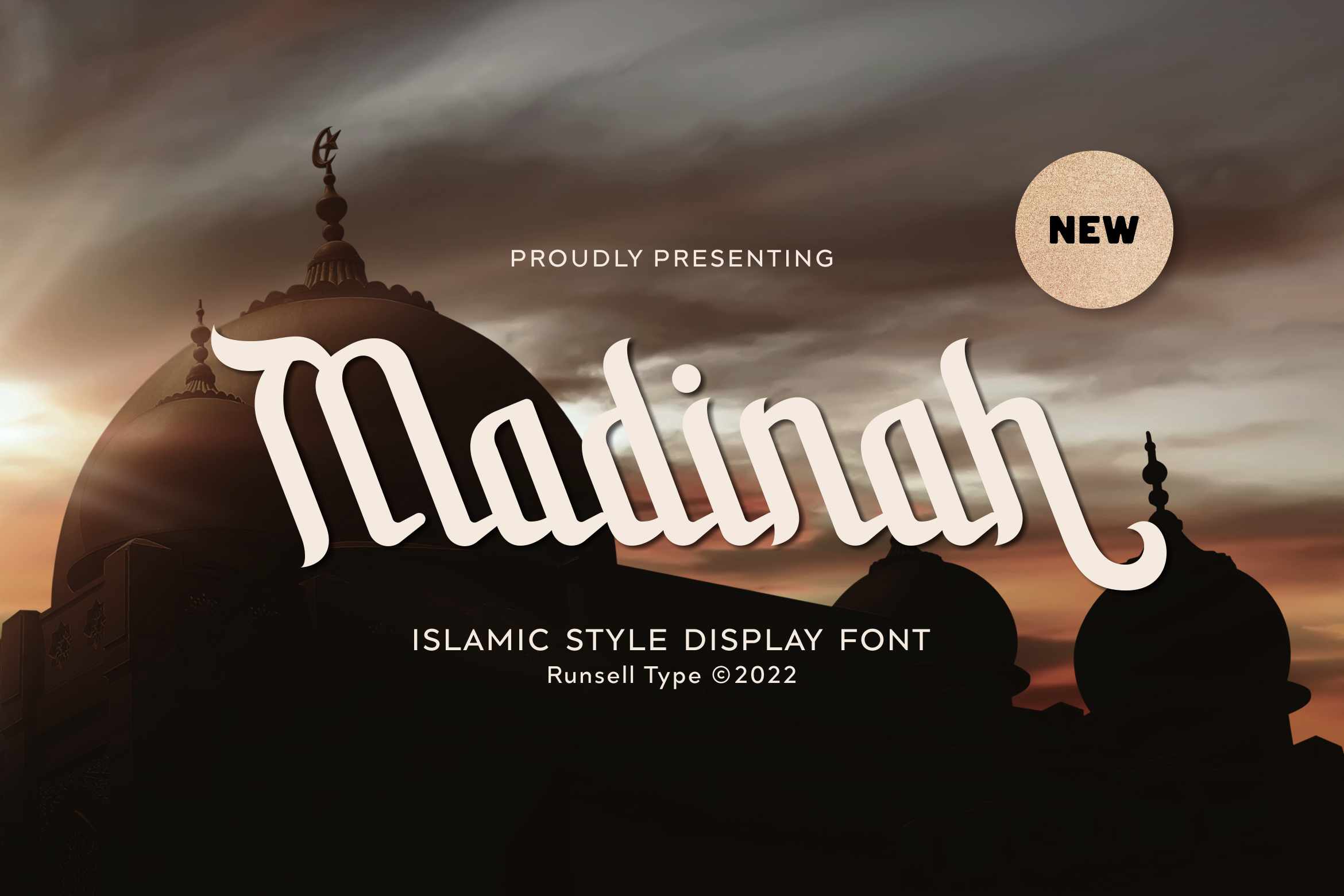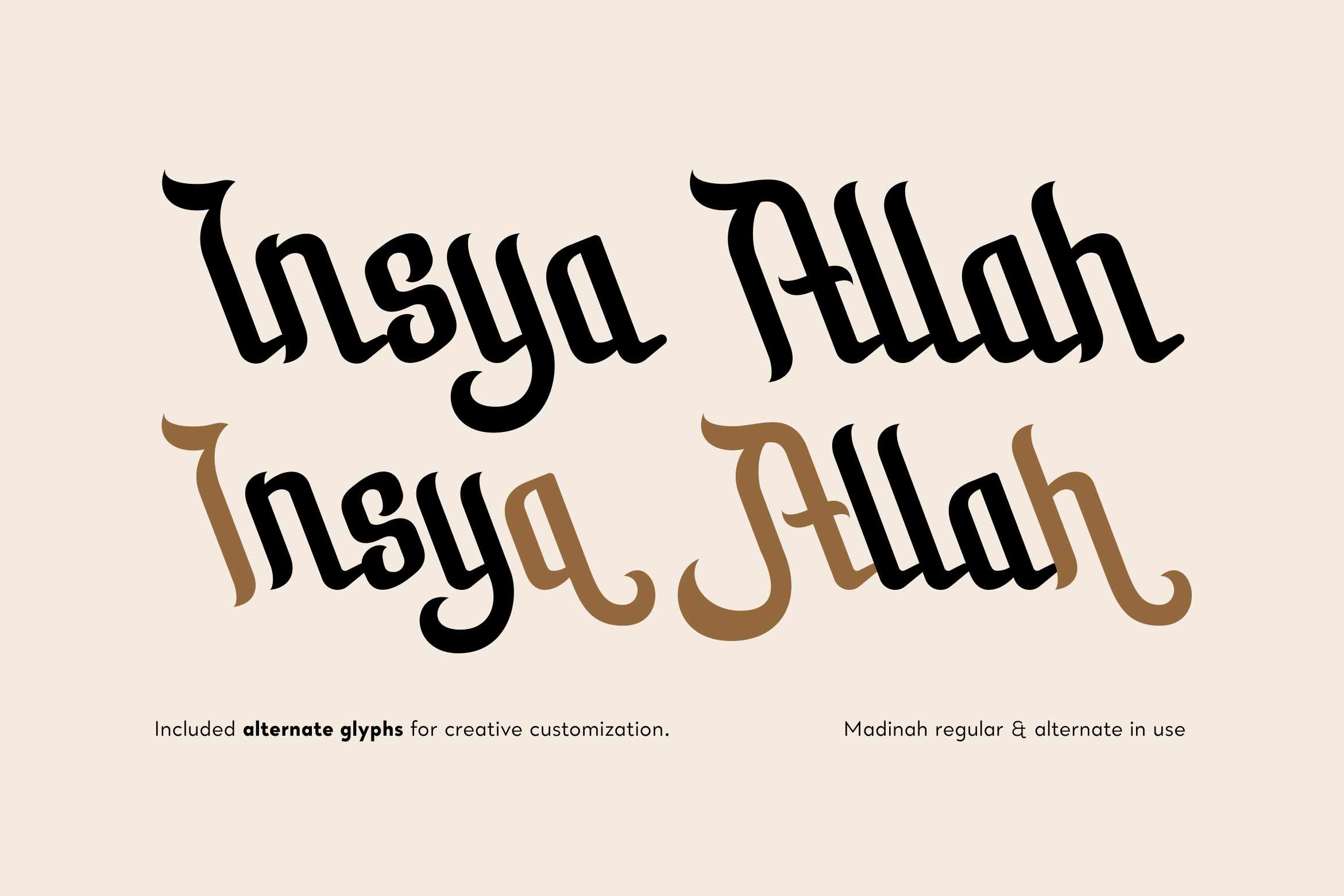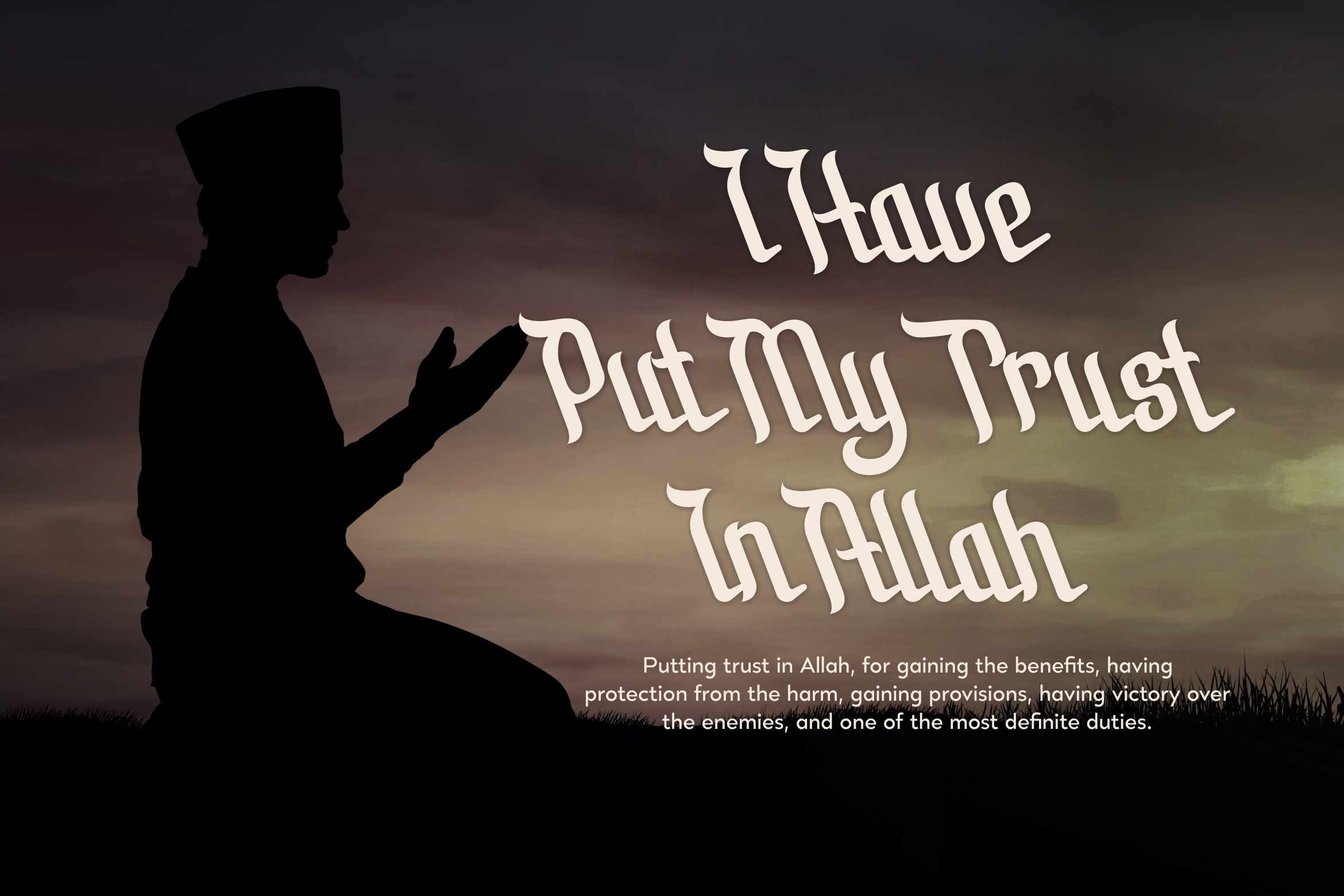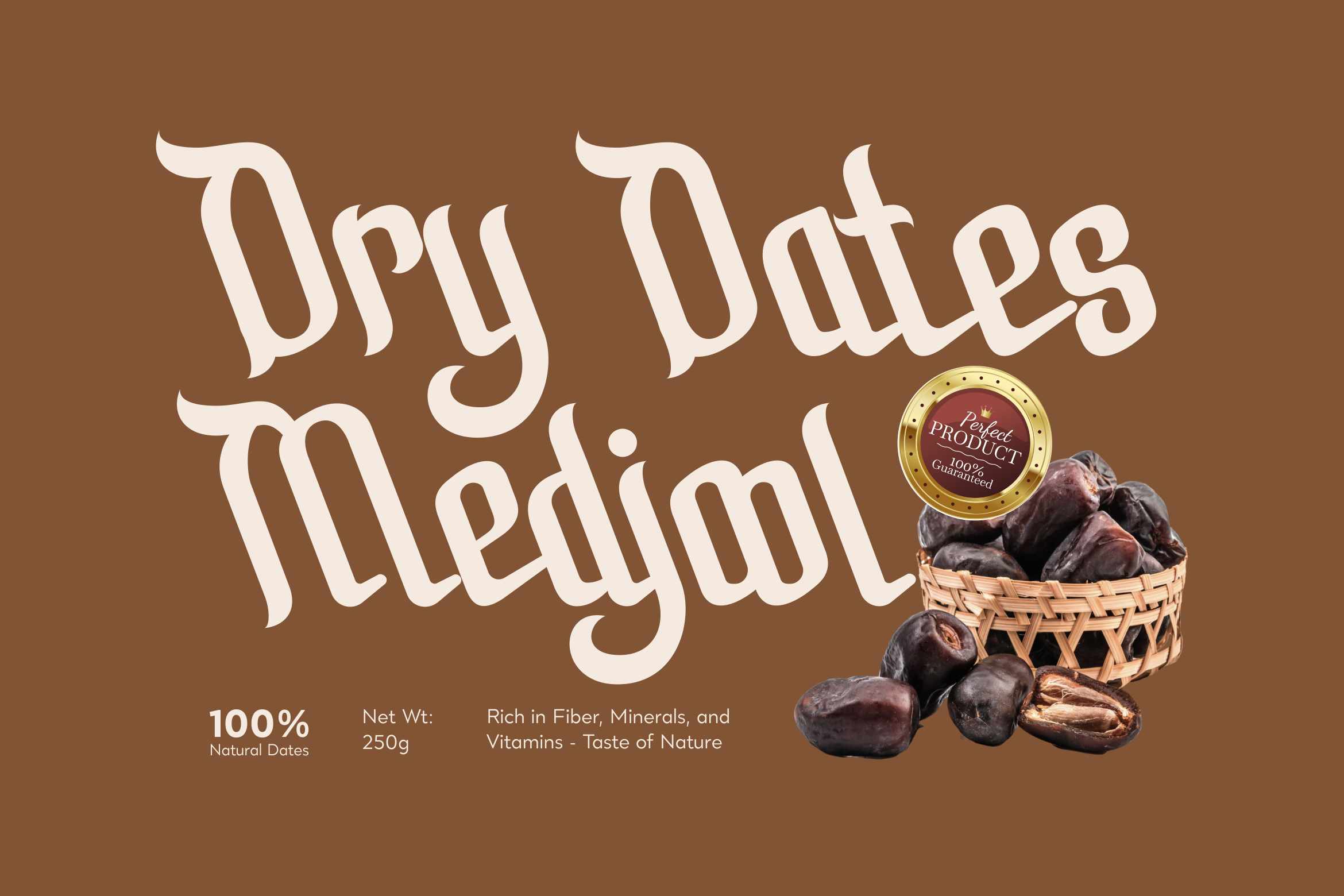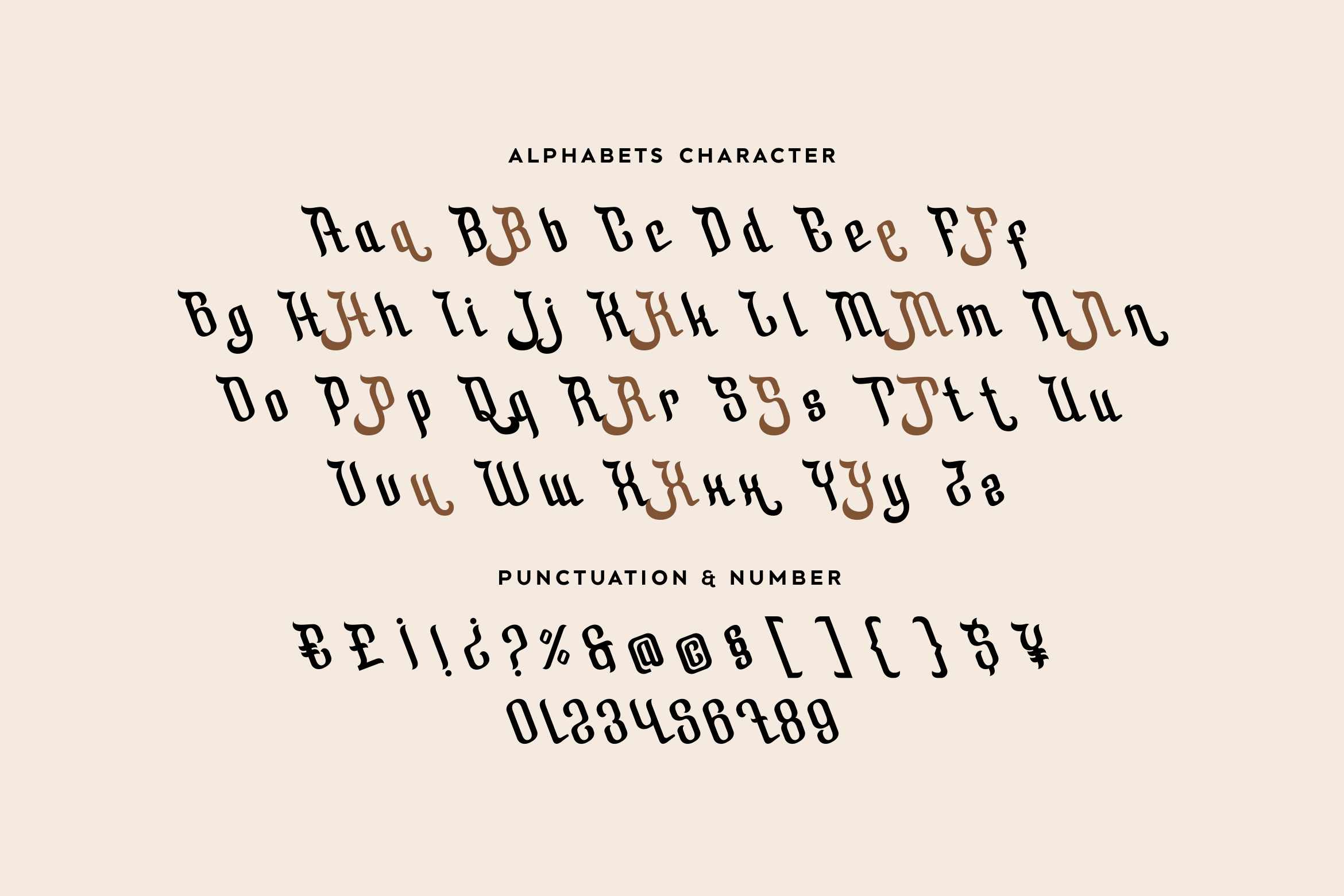
Madinah is an elegant Islamic-style display font that beautifully blends traditional calligraphic inspiration with modern letterform flair. Its distinctive swashes and flowing curves capture a graceful rhythm, making it ideal for Islamic-themed branding, religious event posters, Ramadan or Eid greetings, and packaging for dates or halal products. This font comes with alternate glyphs, allowing designers to craft personalized typography that exudes cultural warmth and spiritual elegance.
From its refined letter strokes to its smooth connections, Madinah evokes sophistication and reverence. It works well in large display settings and conveys a message of peace and dignity. Whether you’re designing for Middle Eastern luxury, cultural identity, or modern Muslim communities, Madinah brings authenticity and artistic integrity to every composition.